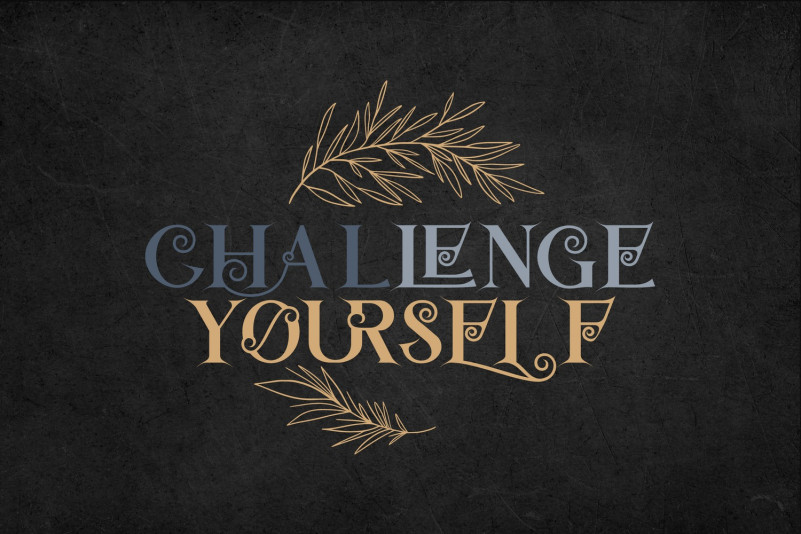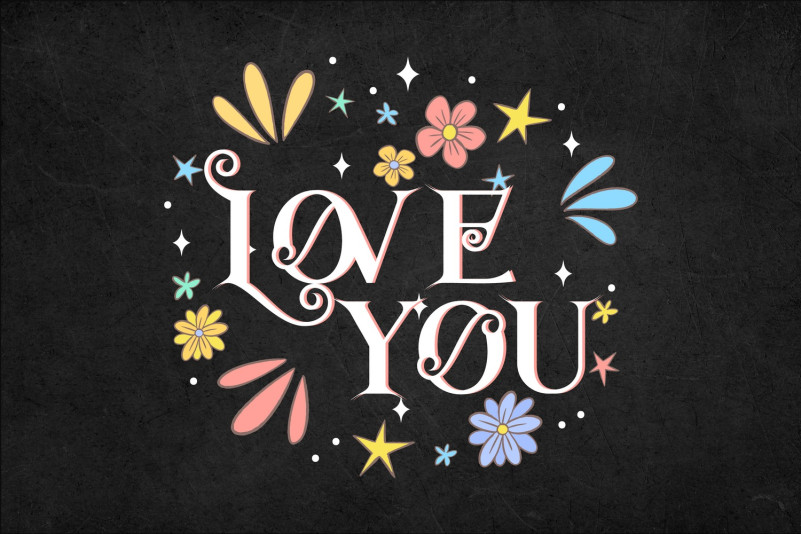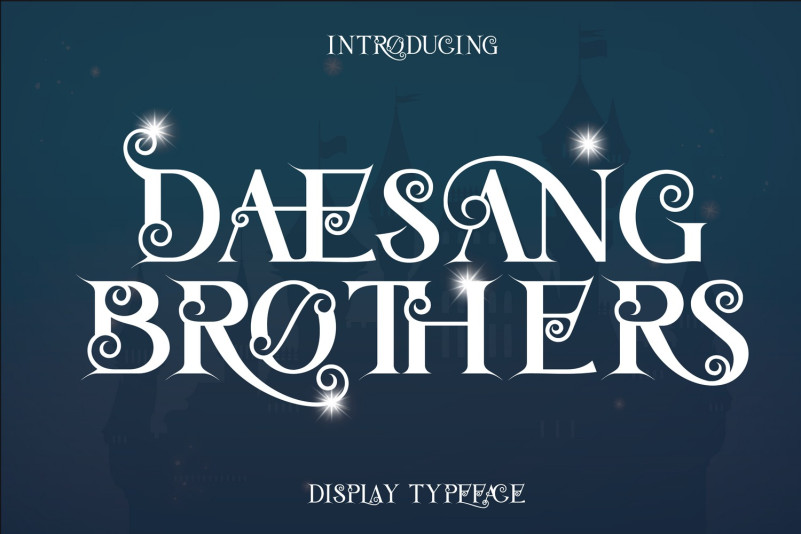
Daesang Brothers Font
Daesang Brothers Font – Ligature Serif Font – Chic and Fancy Font. It’s a sophisticated, charming serif font with a fashionable touch. Specially designed for luxury, elegant, feminine projects, this font is perfectly suitable for creating modern, chic designs. This font suitable for any project such as: logos, branding projects, home appliance design, product packaging, mugs, quotes, posters, shopping bags, t-shirts, book covers, business cards, invitation cards, greeting cards, labels, photography, signs water, special events and all your other luxury projects that need a premium feel.
To make it look more unique, here we prepared some ligatures:
ab ac ad ae af ag ah aj ak an as ca cx dc dd dg do dq ea ec ef el eq es et ez gn gs gv gw gy ha hb hd he hf hh hk hp hr ko kq ks la le lo lq mb md me mf mh mk mp mr mu nb nd ne nh nm np nr ov ow qa qs qv qw um un up ur tu tz th st ss sv sw sy ra ro rq rs